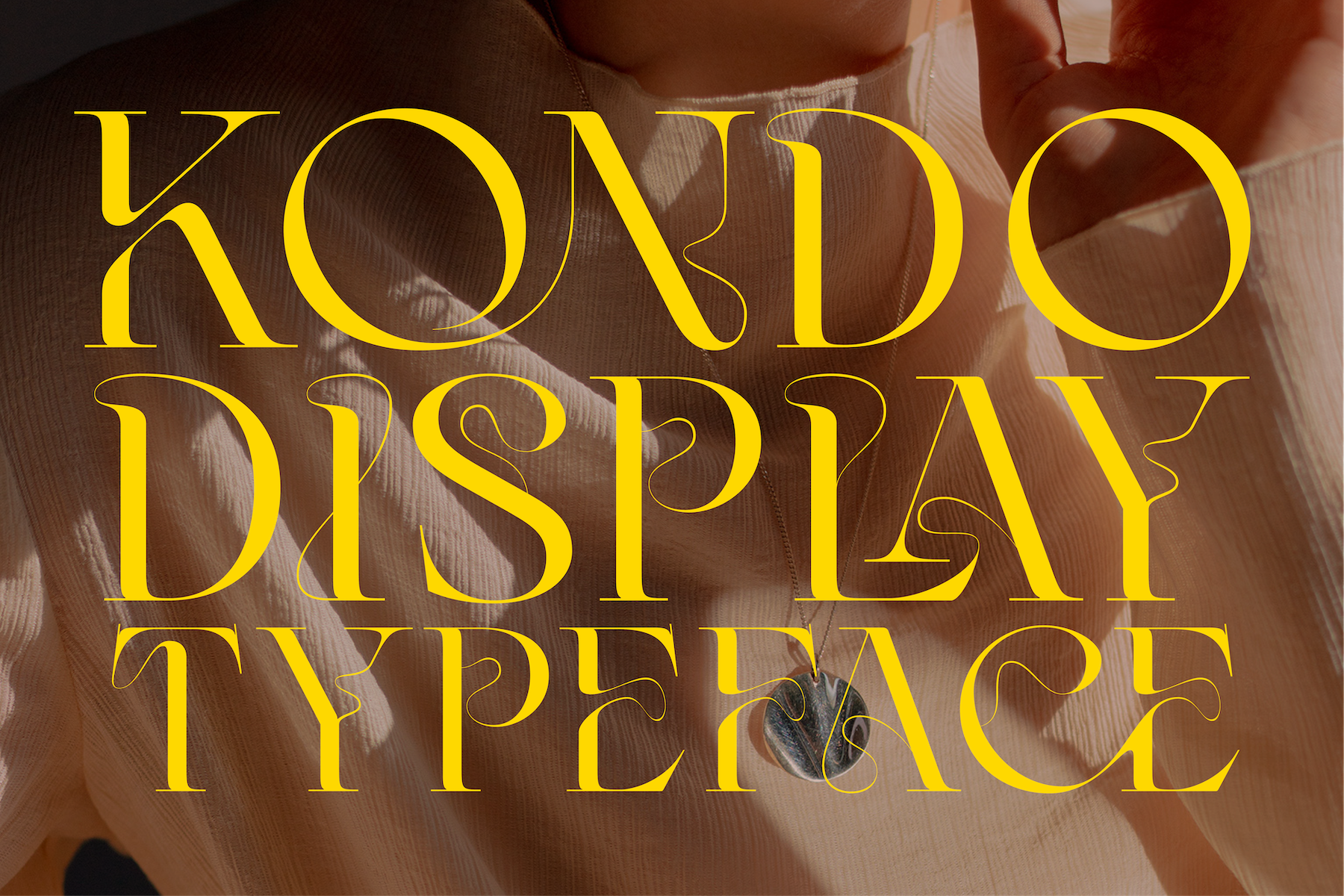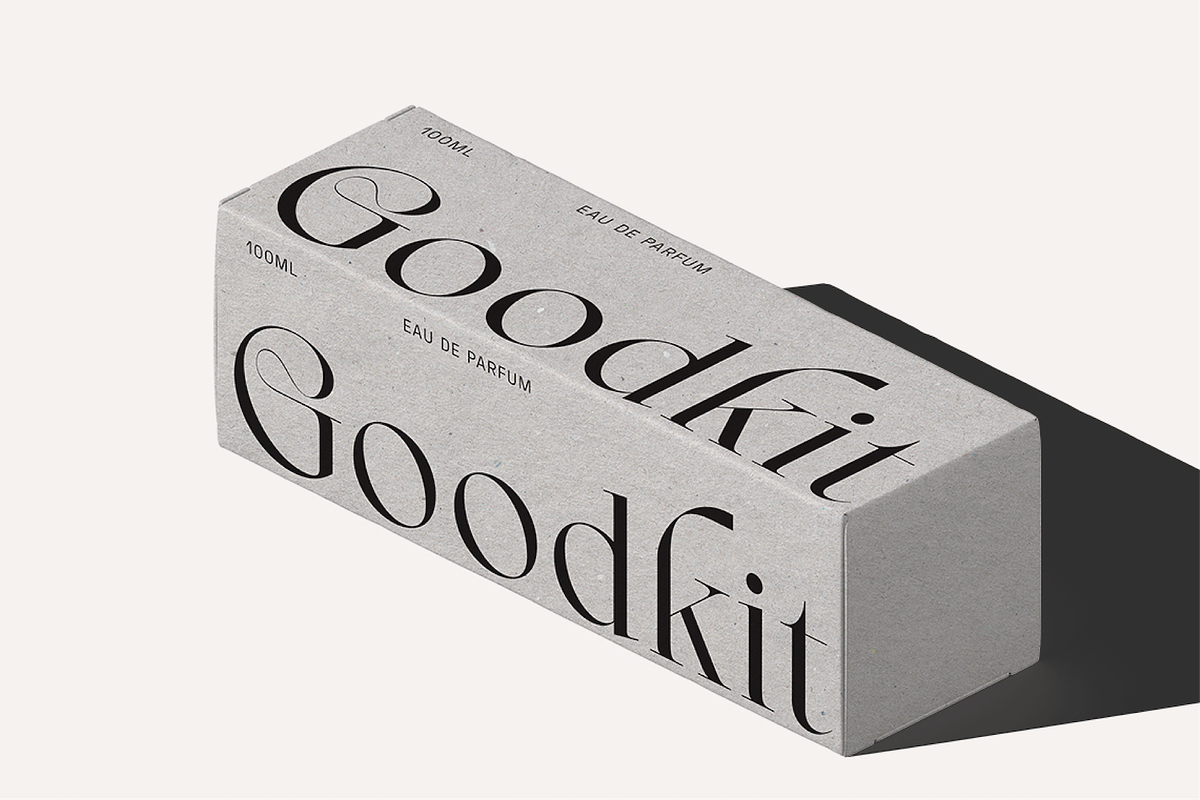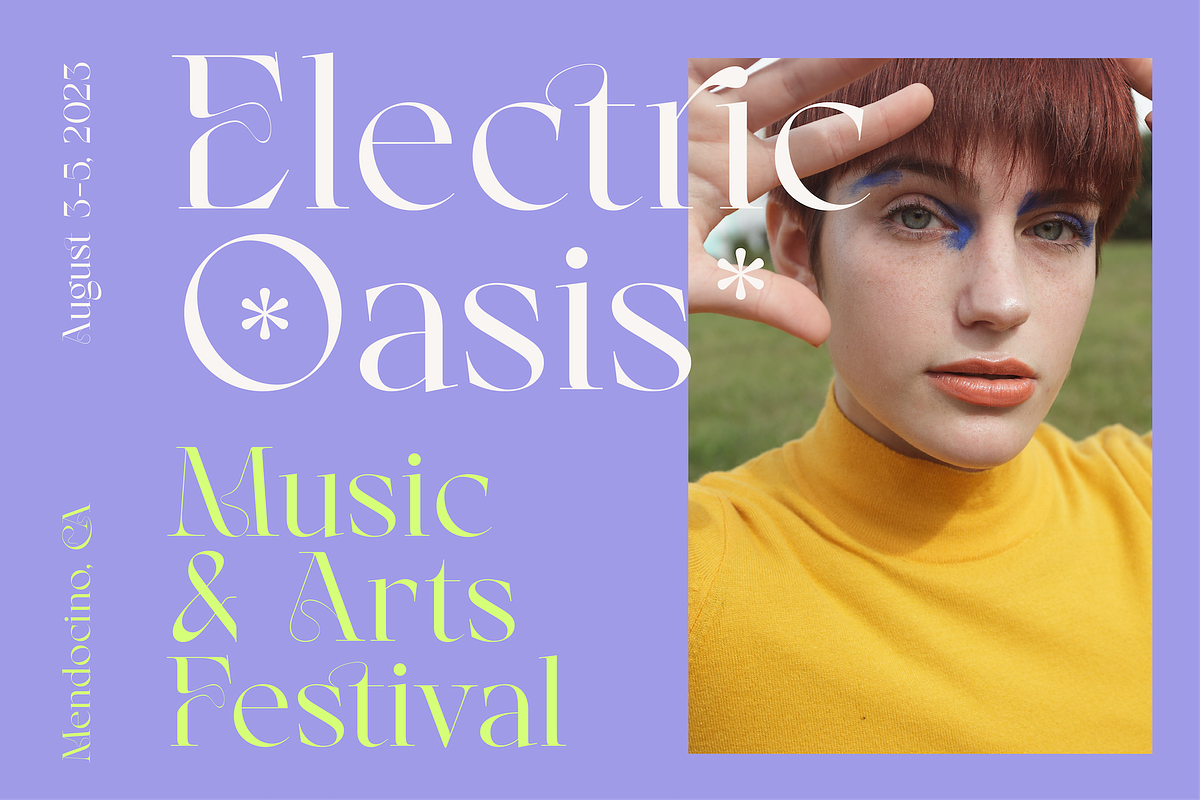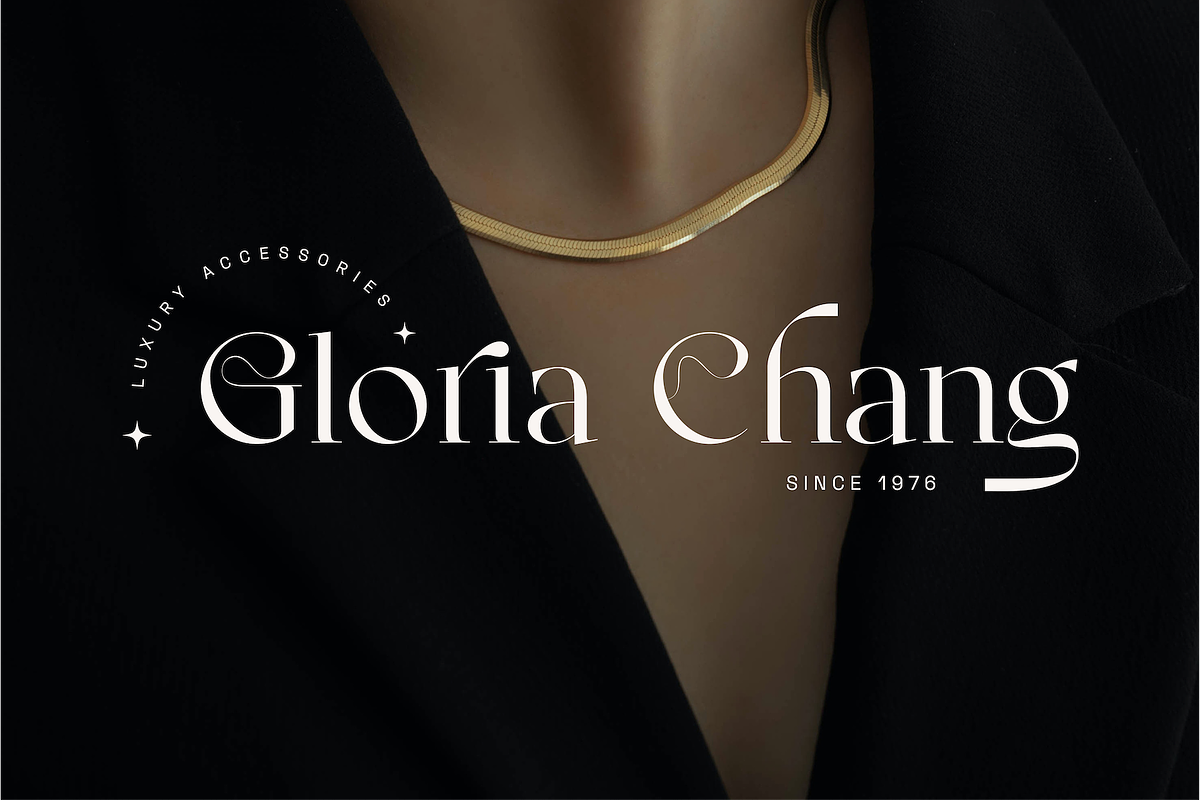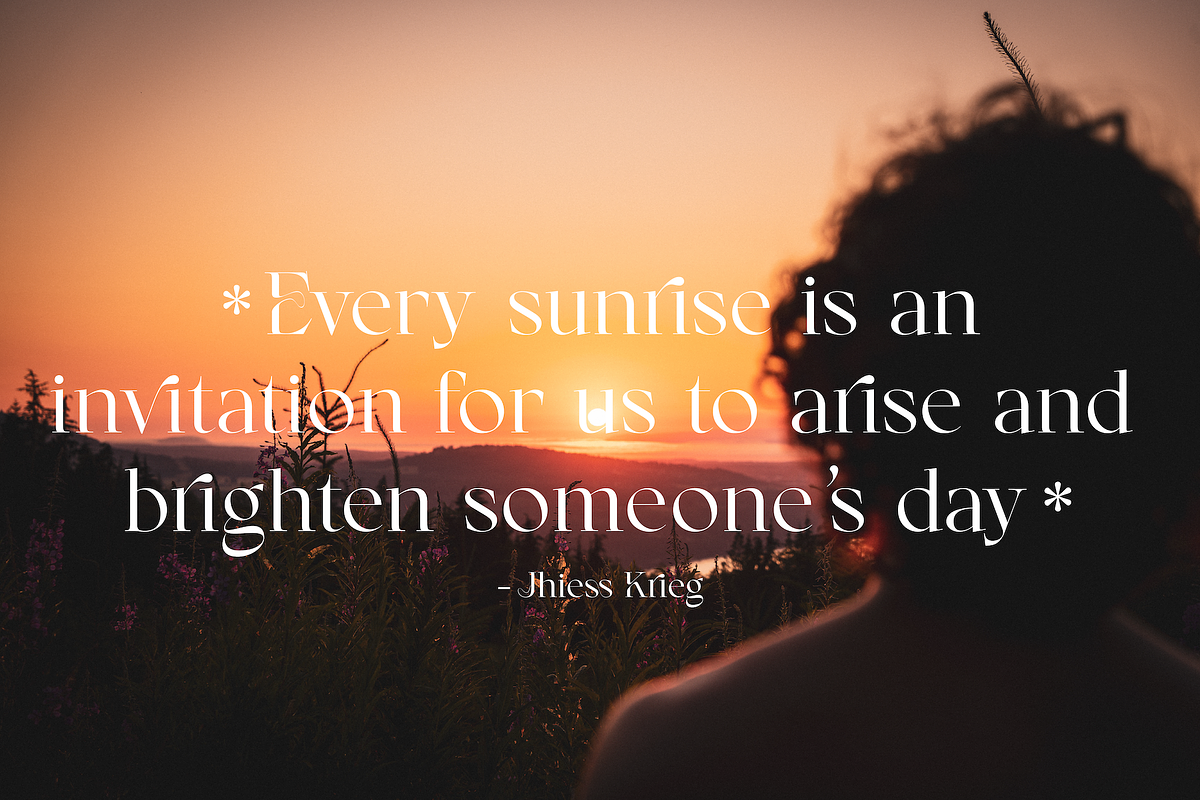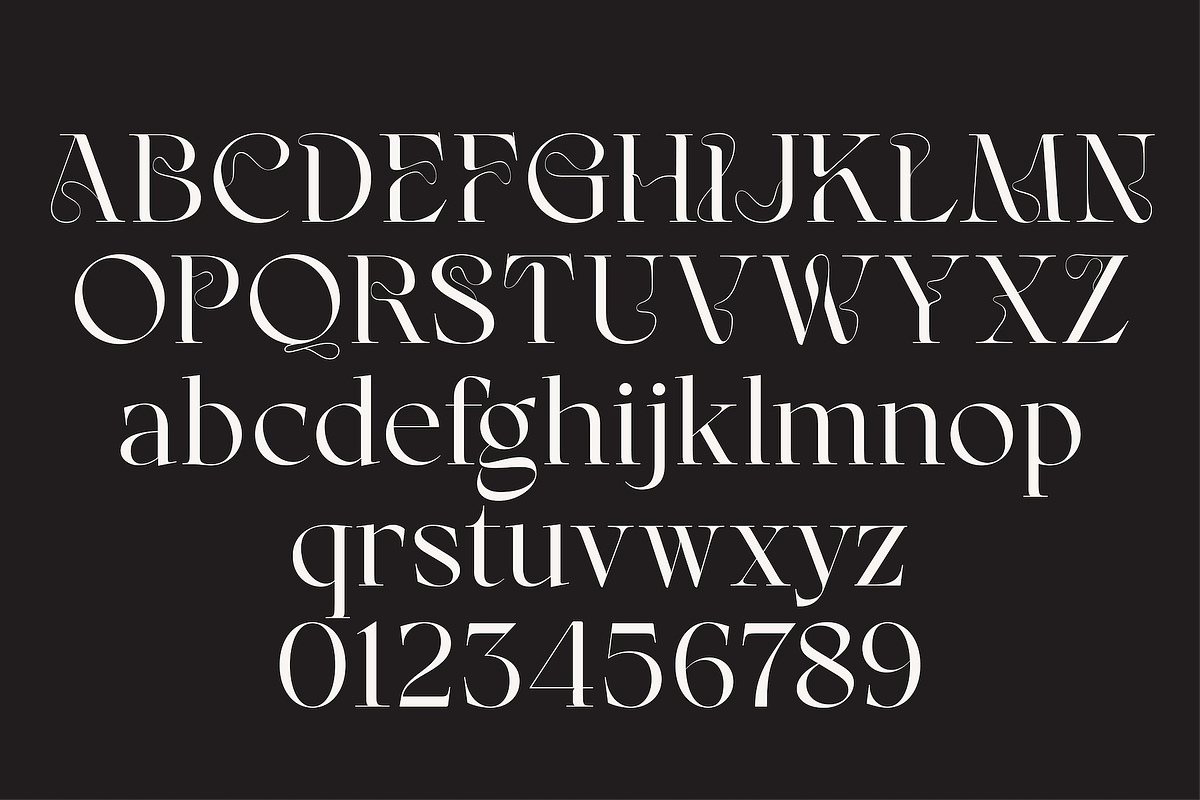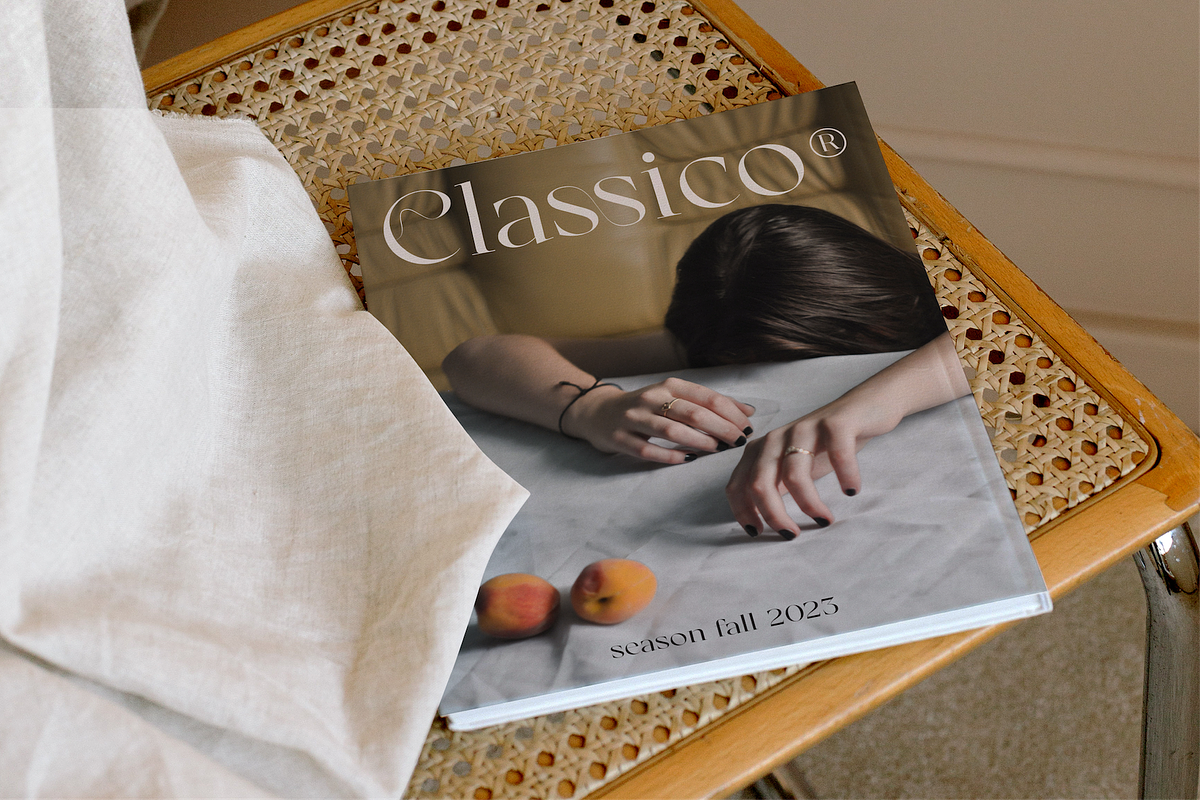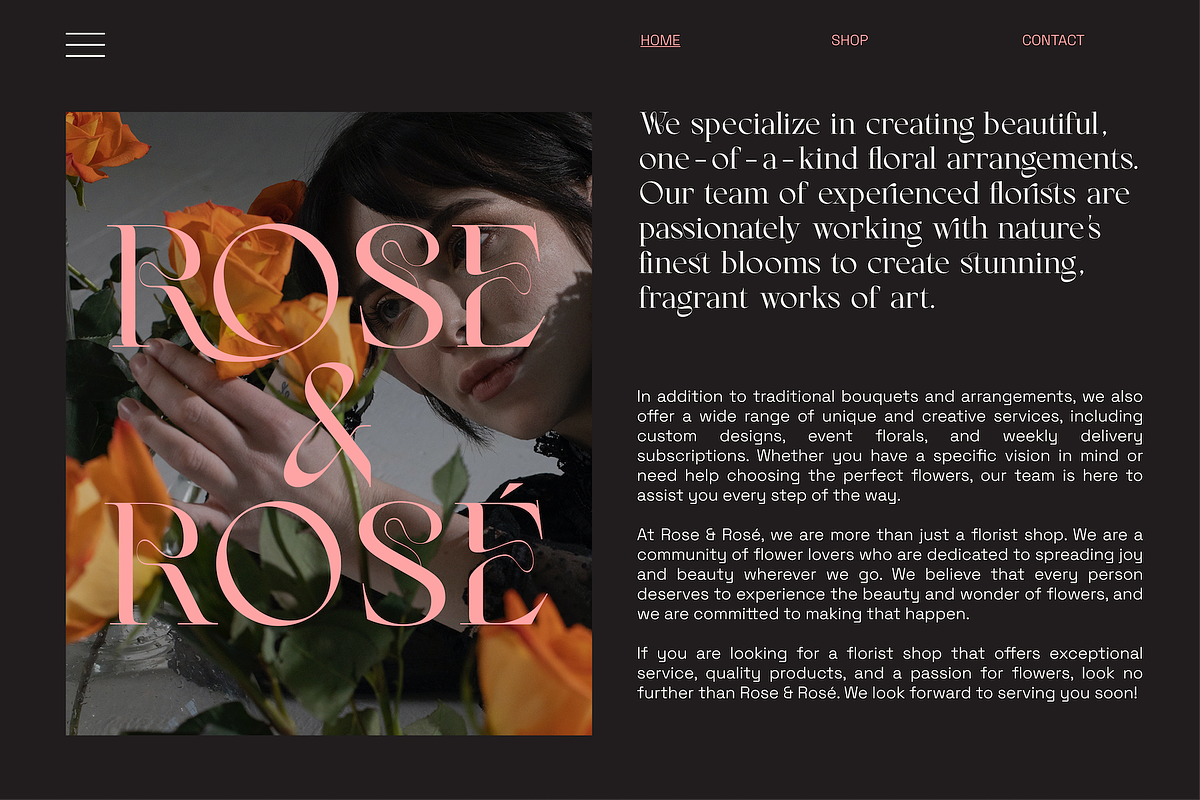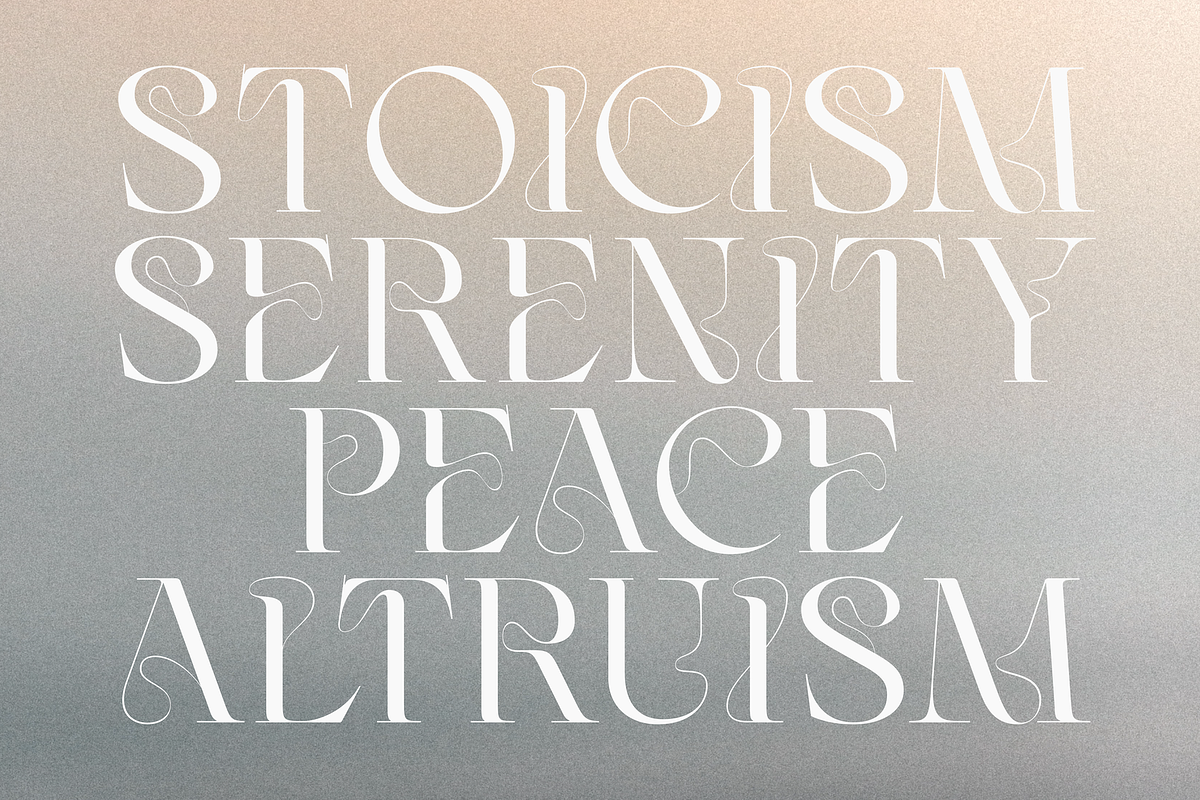
Kondo - Luxury Display Typeface
Kondo is a highly stylized serif font that features elegant looping details in the uppercase characters. This makes it a perfect choice for creating branding and logo designs with it's huge selection of custom ligatures.